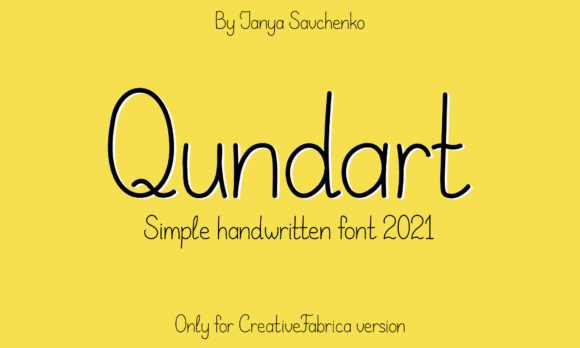
Dive into the world of Qundart, a captivating and enchanting handwritten font, designed to infuse your creative projects with a touch of charm and elegance. Surrender to the allure of this remarkable script font, meticulously crafted by the talented Tanya Savchenko, and unlock endless possibilities for your written expressions.
Born from the desire to create a font that embodies the essence of handwritten beauty, Qundart exudes a unique character that adds a personal touch to your designs. Its graceful curves and whimsical lines effortlessly emulate the natural flow of handwriting, evoking a sense of warmth and authenticity.
Unlock the versatility of Qundart and transform your postcards, greetings, and promotional banners into captivating works of art. Its charming personality adds a touch of magic to invitations, personal branding, and logos, ensuring your messages stand out from the crowd.
Qundart's intricate details and delicate charm make it the perfect choice for designers seeking an elegant and sophisticated script font. Its versatility shines through in crafting logos, blog headers, and social media graphics, adding a touch of class to your digital presence.
Don't settle for ordinary fonts. Embrace Qundart's allure and embark on a creative journey where your words come alive with grace and charm. Let Qundart captivate your audience, leaving an unforgettable impression that speaks volumes.